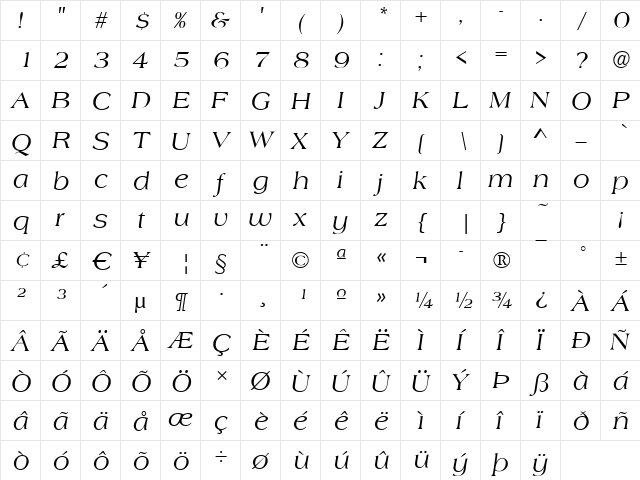
Almeria Italic
Design Context for Almeria Typeface
Almeria is a composed and adaptable typeface that performs quietly and consistently across a wide range of design contexts. The slanted form adds forward momentum and visual energy.
Pro Tip: Try Almeria for annotation and caption copy alongside an upright companion — the contrast in angle creates a dynamic but ordered typographic system.